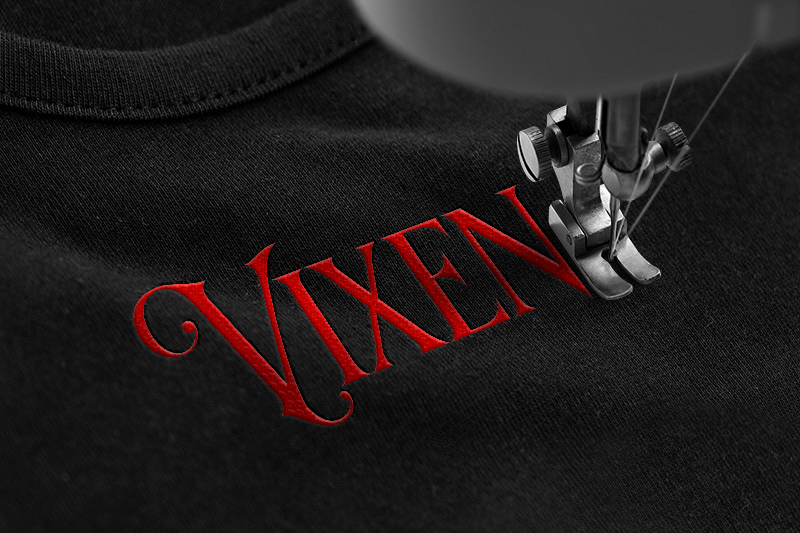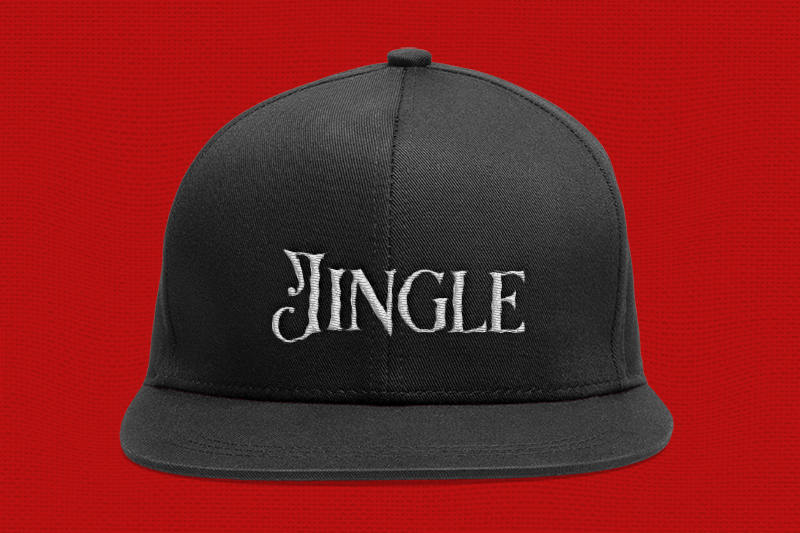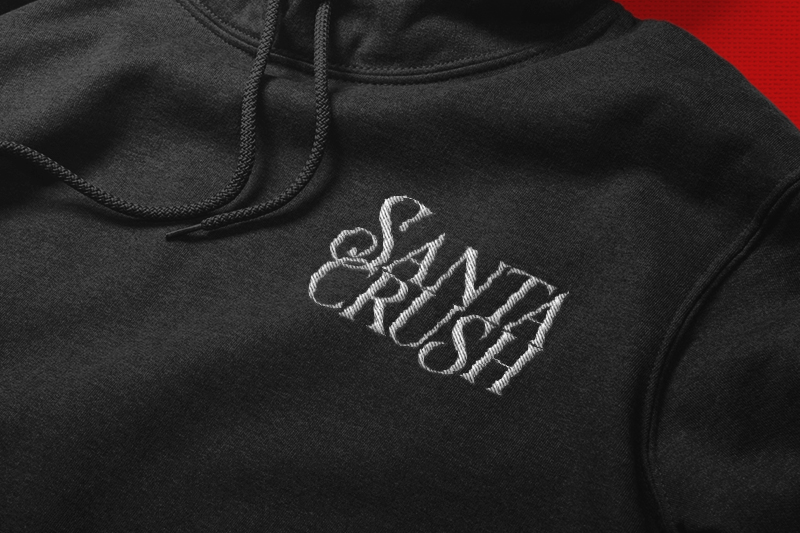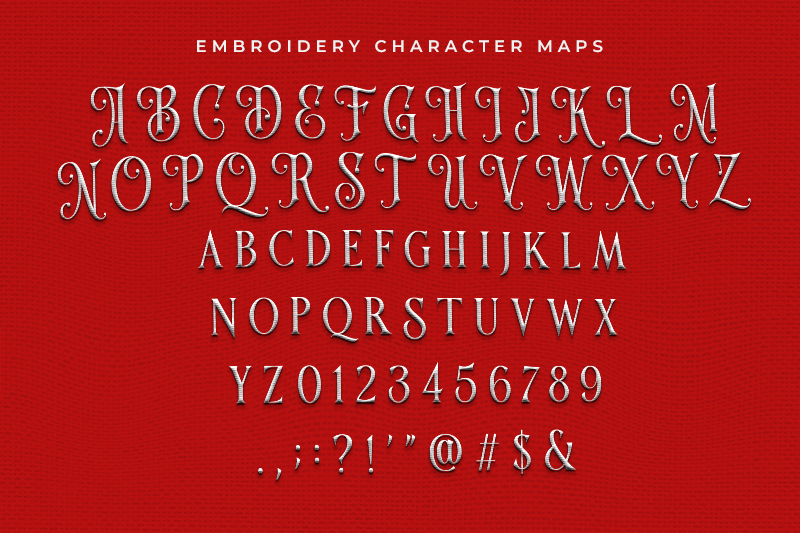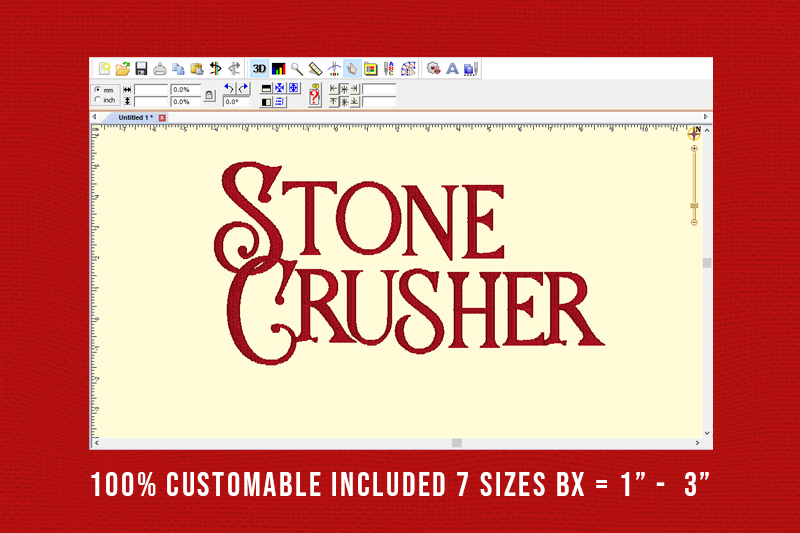
Talking about embroidery fonts will be very fun. Their appearance looks so simple and elegant that anyone who sees it will be amazed. This time, we're bringing a new kind of Embroidery font as part of our Christmas fonts called Stone Crusher embroidery font. We created this font as a legible font that is easy to distinguish between each letterform. You can also choose different font sizes and file types to use.
Stone crusher font is composed with a simple appearance, where the shape is almost like letters in general but has beautiful curves and small circles at the ends of the letters. This font has distant from embroidery fonts in general, the font shape is upright and has sharp edges that are absolutely obvious. This characteristic makes the Stone crusher look unique, simple, and modern when viewed as a whole and combined with the appropriate object.
Many products are compatible when using this font in them. The Stone Crusher embroidery font is the best Christmas font to apply to clothing item designs such as t-shirts, hoodies, and jackets. This font can also be embroidered on hats and handmade for Christmas parties.